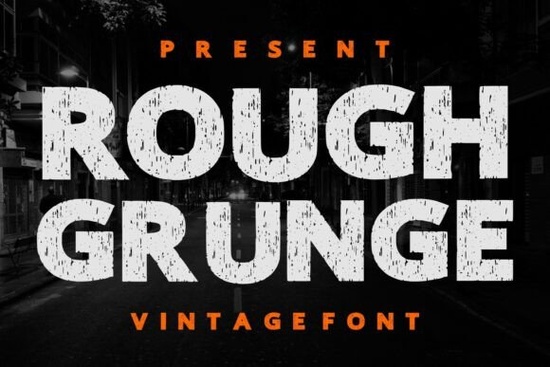
If you're looking for a bold, no-frills typeface that brings raw energy and vintage edge to your projects, the Rough Grunge Font delivers exactly that. It’s not just another display font it’s built with texture, character, and a lived-in look that feels authentic. Whether you’re designing streetwear, creating album art, or branding a retro-inspired business, this font adds instant attitude without needing extra effects.
What makes Rough Grunge Font stand out?
The design blends distressed textures with strong, readable letterforms. The worn edges, subtle cracks, and uneven strokes give it a hand-crafted feel like something ripped from an old city wall or printed on faded paper. It’s perfect when you want your work to feel real, unpolished, and full of personality.
It works well in both digital and print formats. You can use it for posters, packaging labels, T-shirt designs, social media graphics, or even small business logos. The rough aesthetic fits naturally with themes like punk, rock, urban culture, or anything with a nostalgic twist.
Where can you use this font?
- Streetwear & apparel – Add grit to hoodies, tees, or caps with a rebellious vibe.
- Music & album covers – Perfect for indie bands, hip-hop artists, or any project with a raw sound.
- Branding & logos – Give your startup or creative business a memorable, vintage edge.
- Printed materials – Works great on flyers, zines, and event posters with a DIY feel.
- Creative hobbies – Ideal for scrapbooking, custom stickers, or handmade greeting cards.
You don’t need to overthink the style this font already has its own identity. It’s ready to use, and it stands out without being loud. The balance between legibility and texture makes it practical for headlines, titles, and emphasis text.
How does it compare to other fonts in the same style?
If you’ve explored similar options, you might have come across fonts like gothic-style display fonts, which lean more into dark, dramatic lettering. Or graffiti-inspired fonts, which focus on spray-paint aesthetics and wild shapes. The Rough Grunge Font sits somewhere in between more structured than graffiti but with enough imperfection to feel authentic.
Why choose this font for your next project?
It’s simple: it saves time and delivers results. You don’t need to add filters, overlays, or Photoshop tricks to get that grungy look. The font already includes all the wear-and-tear details built in. That means faster workflow, especially if you’re working on multiple designs or running a print-on-demand shop.
It’s also versatile. Use it in large sizes for impact, or scale it down for subtle background textures. Pair it with clean sans-serif fonts for contrast, or match it with other distressed styles for a cohesive theme.